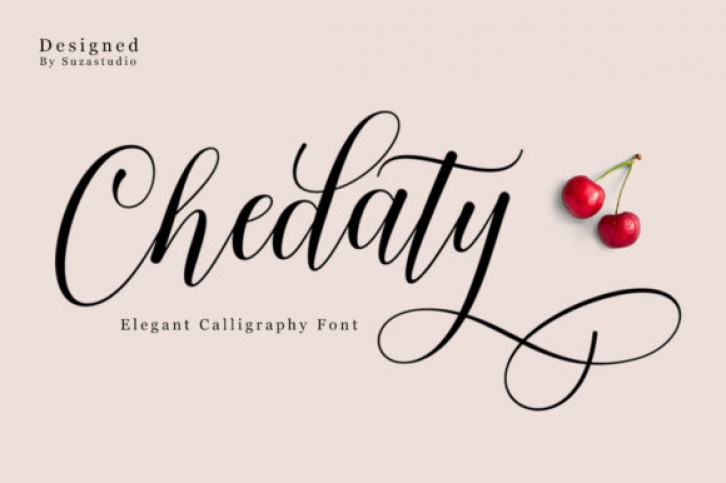
Chedaty is a cute script font with an irregular baseline. It features a modern and flowing styles that make it perfect for wedding invitations, thank you cards, quotes, greeting cards, logos, business cards and more. It is also great for using in ink or watercolor!